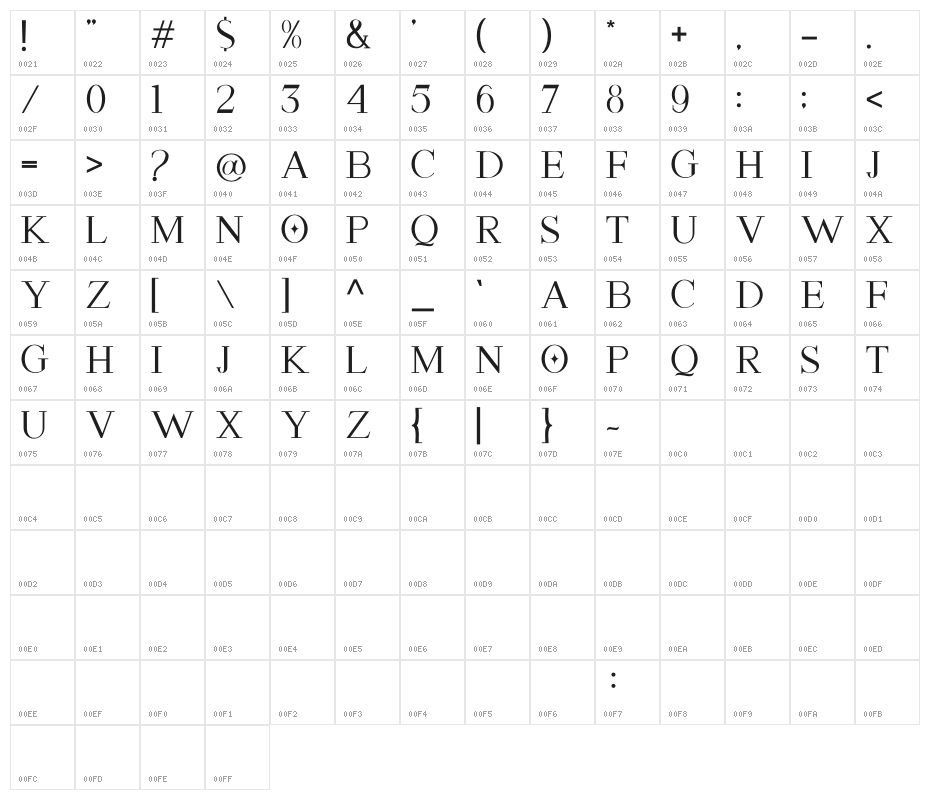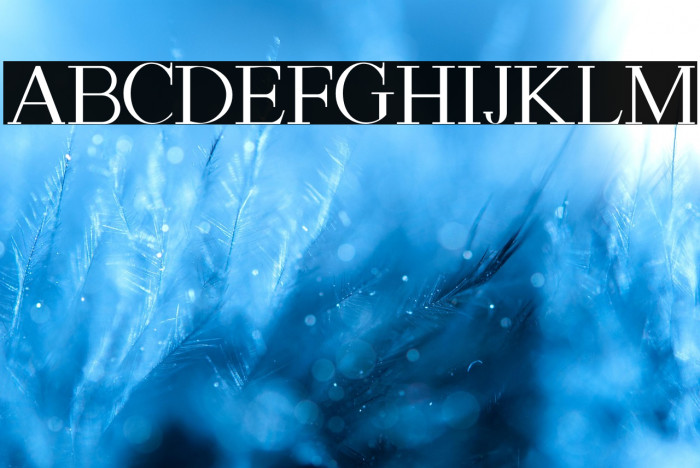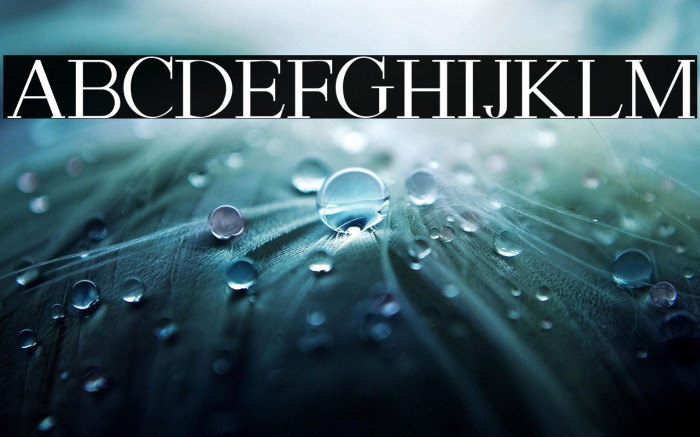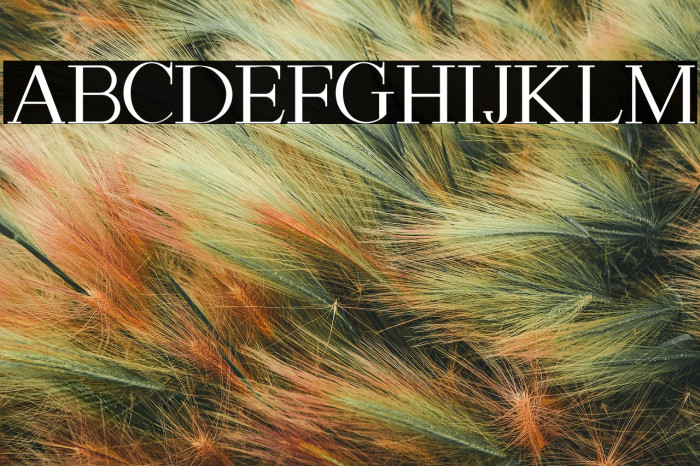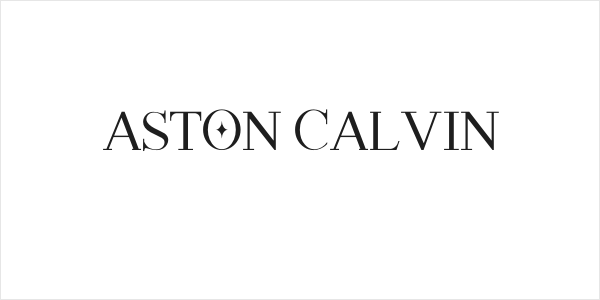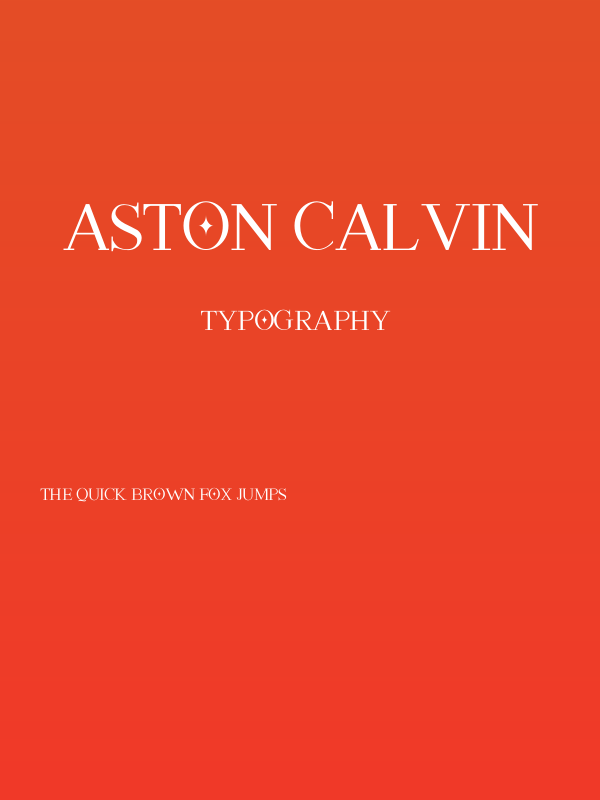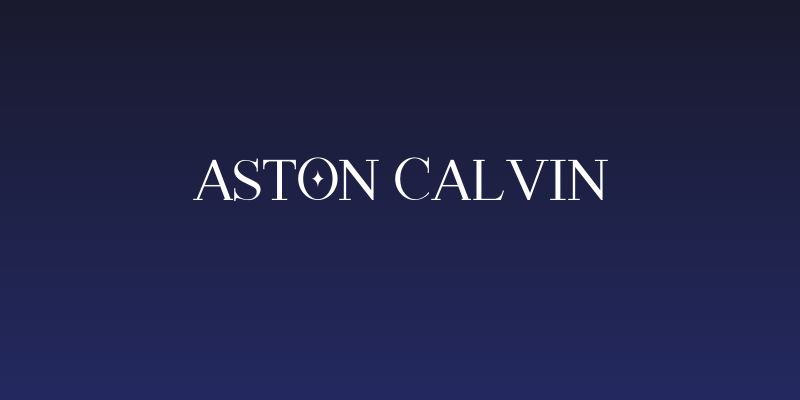
ASTON CALVIN Font
ASTON CALVIN Description
A sophisticated serif font with elegant, thin strokes and high contrast between thick and thin lines. It features unique diamond-shaped elements within certain letters, adding a decorative touch.
| Overall Style | Classic, Decorative |
| Proposed Projects | Luxury branding, editorial design, high-end product packaging. |